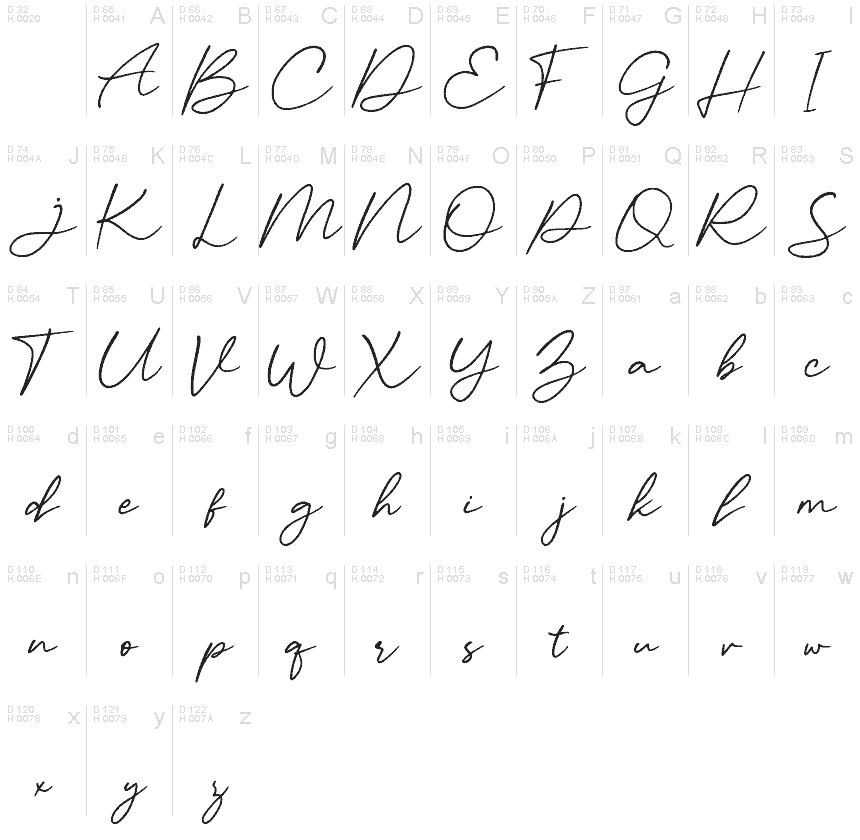
Audys Regular
Audys font is a free handwritten font with an elegant, light, and expressive signature-style suitable for different design projects. The font reflects the ideal fluidity and contemporary aesthetic of a handwritten typeface that transform it into artists’ favorite typography decor. The letters appear in lowercase with connected points in shapes.
With this handwritten download, you’ll be able to create Instagram posts, logos, food packaging designs, personalized prints like invitations and greeting cards alongside menus, product labels or package designs for cosmetics. In signage design concepts include creating name tags or minimalist modern signs.